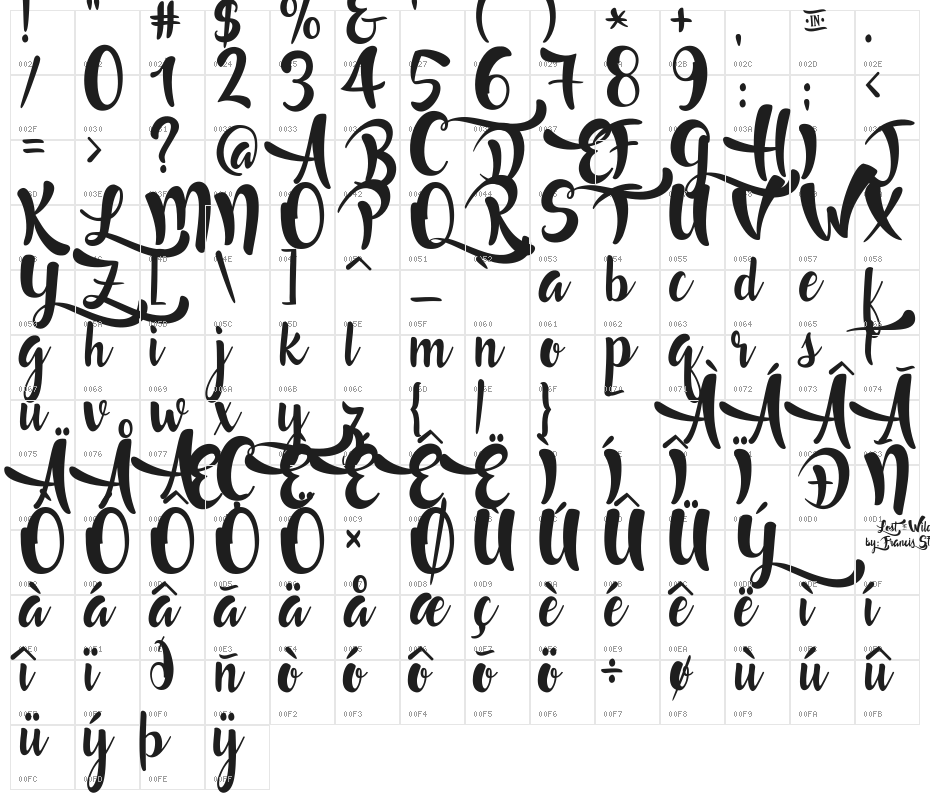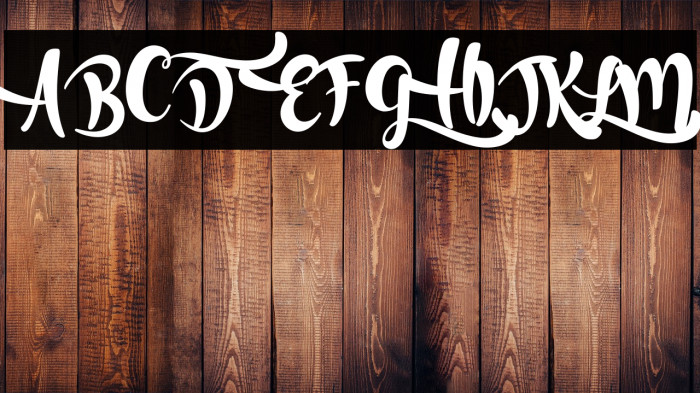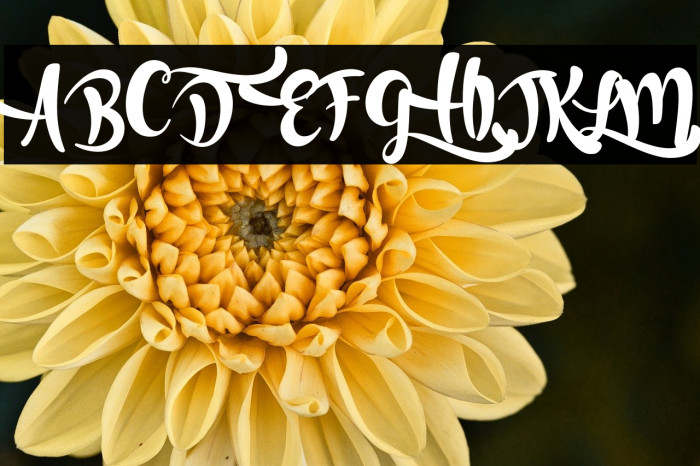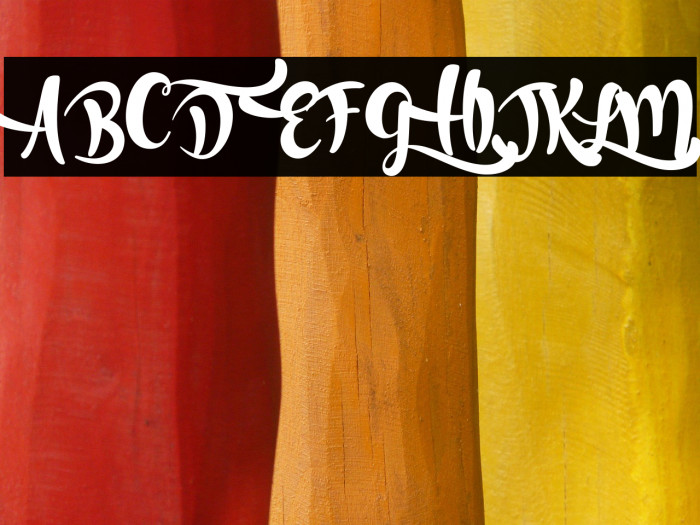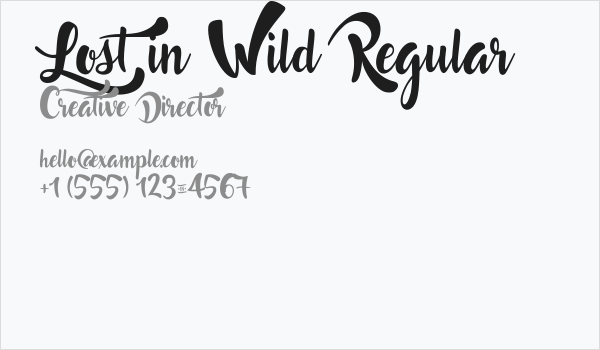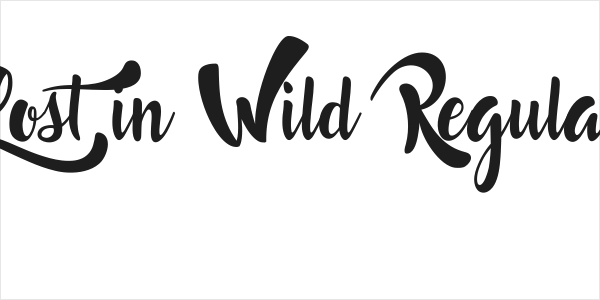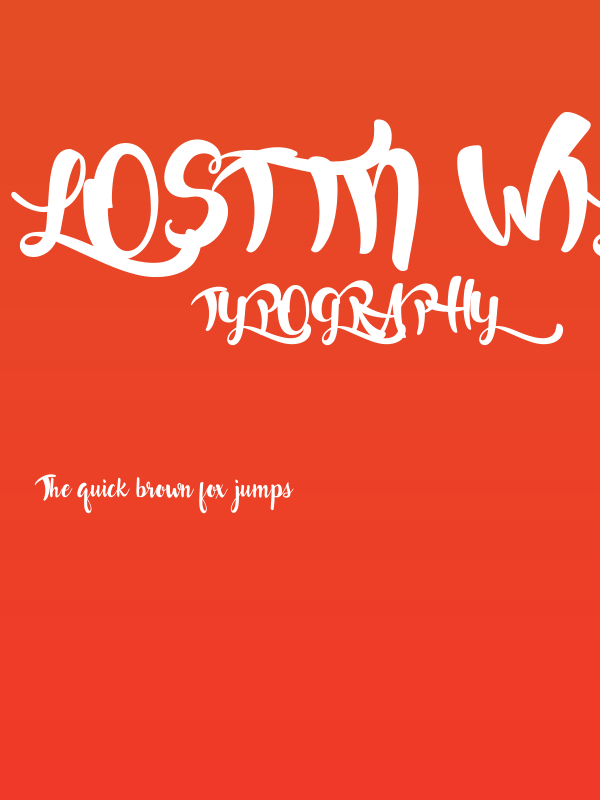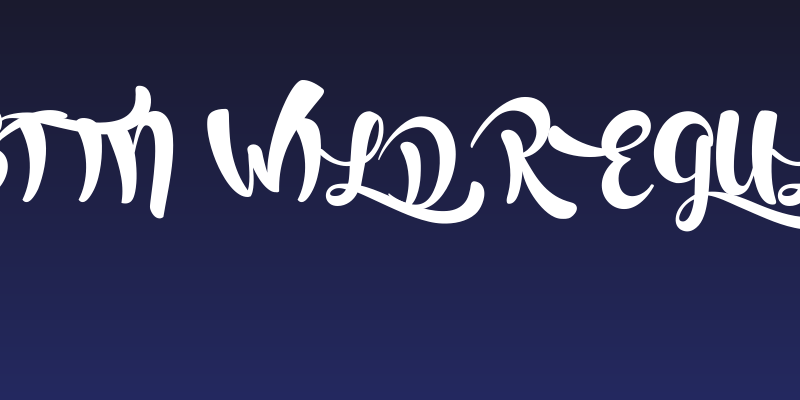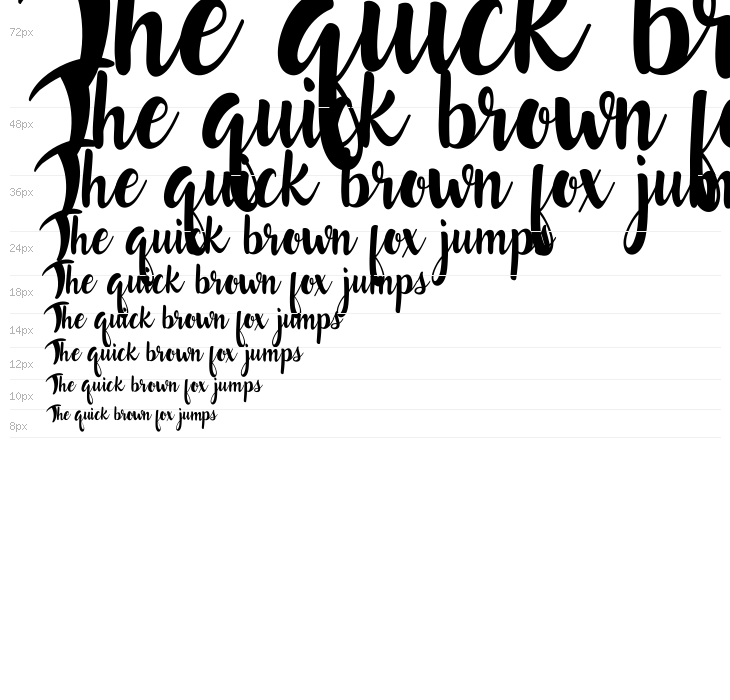
Lost in Wild Regular Font
Lost in Wild Regular Description
This font features a bold and expressive script style, characterized by its flowing, interconnected letters and dramatic flourishes. The uppercase letters are particularly ornate, with exaggerated loops and swashes that give a sense of movement and elegance. The lowercase letters maintain a more consistent flow, with smooth curves and a slightly playful touch. Numbers and special characters are designed to match the overall style, incorporating similar curves and bold strokes. This font exudes a sense of creativity and artistic flair, making it ideal for projects that require a personal and dynamic touch.
Use CaseLogos, Headlines, Artistic projects
Proposed ProjectsIdeal for wedding invitations, greeting cards, branding projects, and artistic posters.